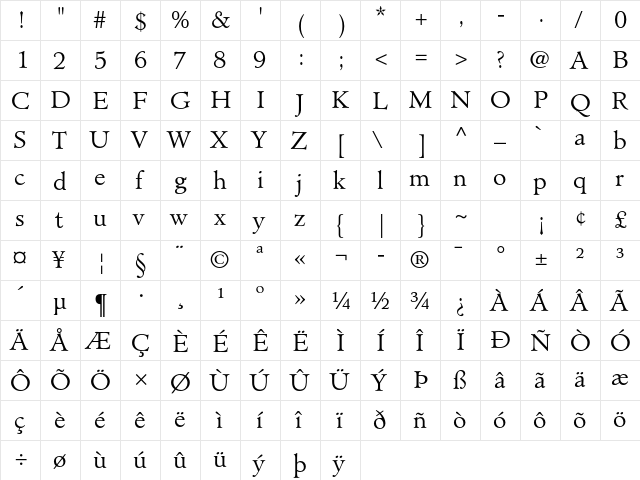
Minister Std Light
| Designer | M. Fahrenwaldt |
Design Context for Minister Std Typeface
Minister Std takes a measured approach to typography — its balanced proportions and neutral character make it a reliable workhorse for both digital and print work. The delicate stroke weight brings airiness and refinement to layouts.